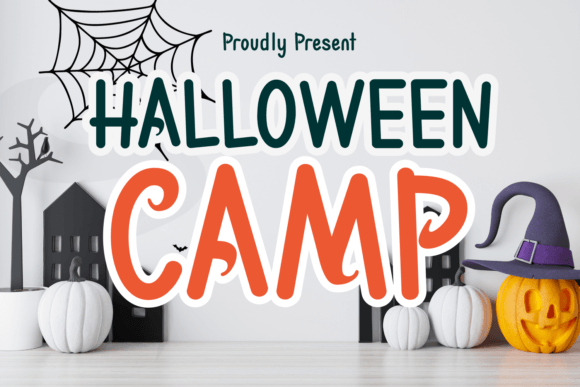
Prepare yourself for a haunting and enchanting journey with our exclusive Halloween Camp Font, a display typeface that will cast a spell on your Halloween designs. Its crisp lines dance with ghostly elegance, embodying the very essence of the spookiest season.
Unleash your creativity with this font's charming and versatile personality. Its clean strokes and subtle Halloween flair make it the perfect companion for your party invitations, flyers, and decorations. Halloween Camp Font will effortlessly elevate your designs, adding a touch of playful sophistication that will leave a lasting impression.
Step into the realm of the supernatural with this captivating font. Whether you're a seasoned designer or a novice seeking a touch of Halloween magic, Halloween Camp Font will guide you through the labyrinth of possibilities. Its user-friendly nature makes it accessible to all, allowing you to effortlessly conjure up eye-catching creations.
Embrace the enchanting spirit of Halloween with Halloween Camp Font. Its enchanting aura will transform your designs into captivating masterpieces, leaving a haunting yet unforgettable mark on your audience. Download it today and embark on a typographic adventure that will make your Halloween-themed projects scream with delight.